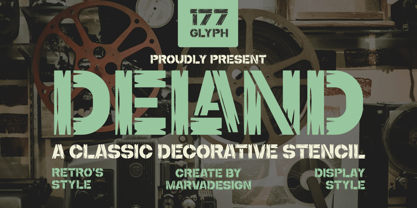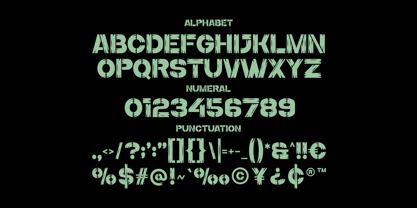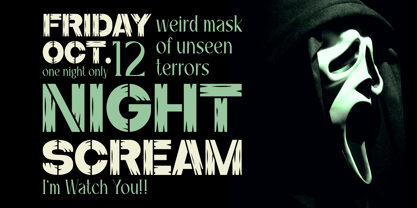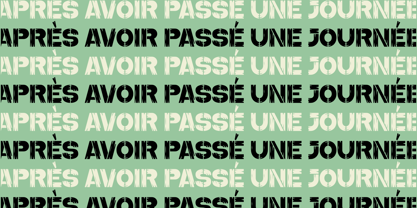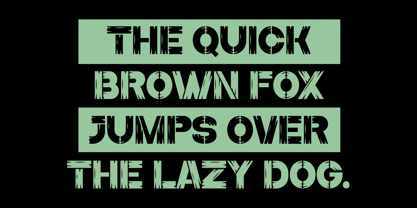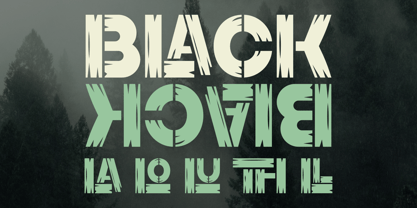
Deland
by Marvadesign
The Deland Font Family was designed by Febrie Setiawan and published by Marvadesign. Deland contains 1 styles.
Introducing deland is a unique and decorative stencil-style typeface, evoking a retro yet modern appeal. The characters feature sharp, angular cuts and distressed edges, giving them a bold and rugged look. This font is particularly suitable for vintage designs, horror-themed graphics, or any creative project requiring an eye-catching display.
Designed with versatility in mind, this typeface supports multilingual characters and ligatures, making it an excellent choice for global applications. The strong contrast and jagged edges enhance its visibility, making it perfect for posters, headlines, and event promotions. The combination of uppercase and lowercase variations allows for diverse typographic compositions.
With its retro-inspired yet edgy design, this font blends well with dark, cinematic, and eerie aesthetics. Whether used for movie posters, Halloween flyers, or branding projects, it adds a distinct personality to the text. The font’s stencil cutouts and roughened details contribute to its industrial and futuristic vibe, making it a valuable asset for designers seeking a bold impact.